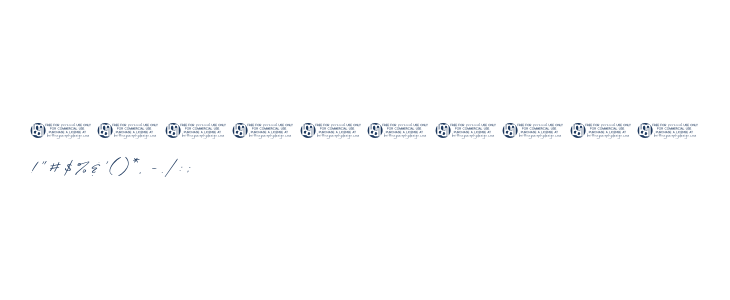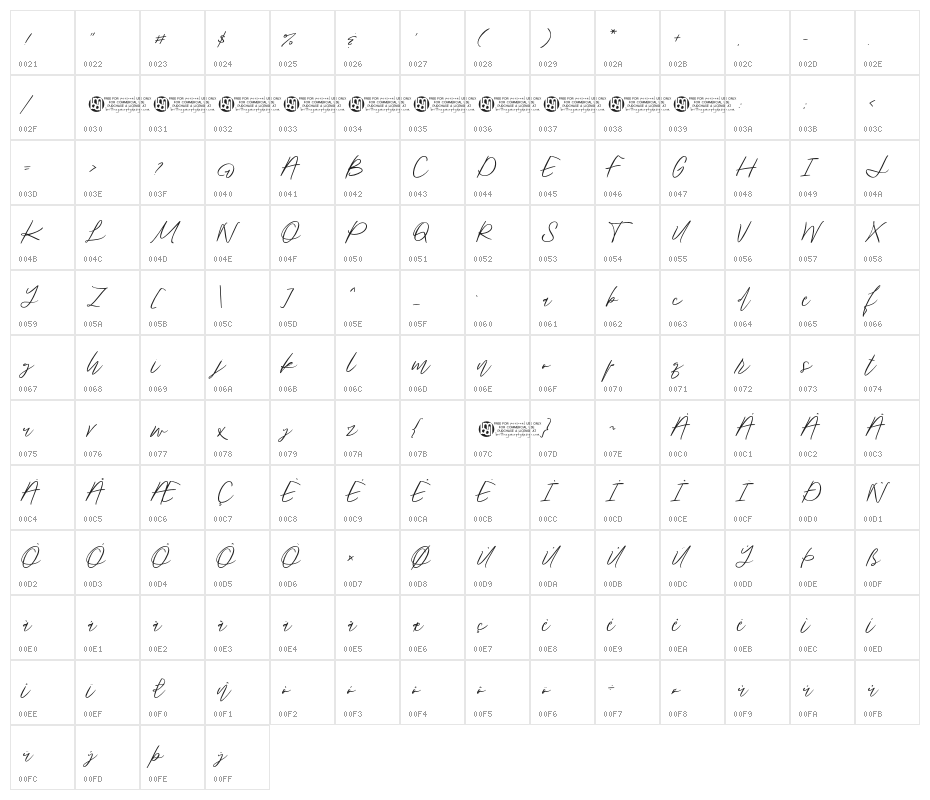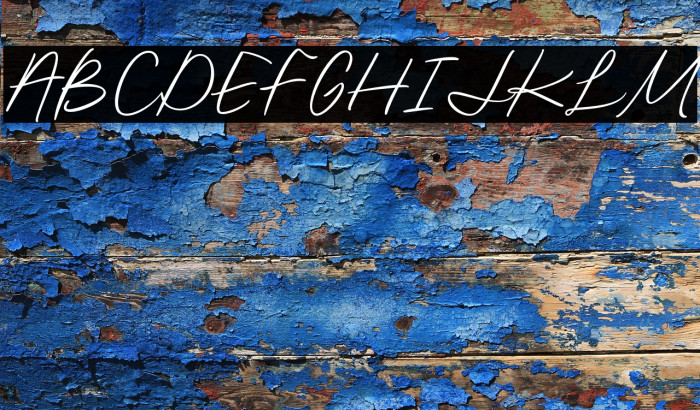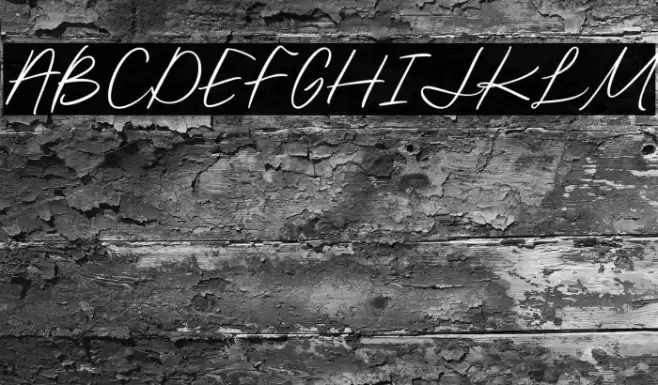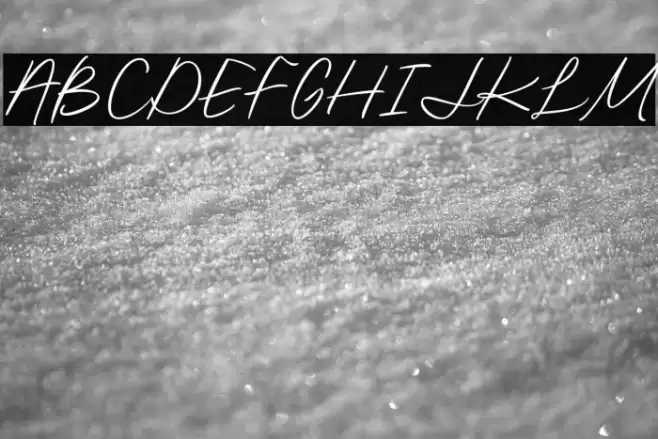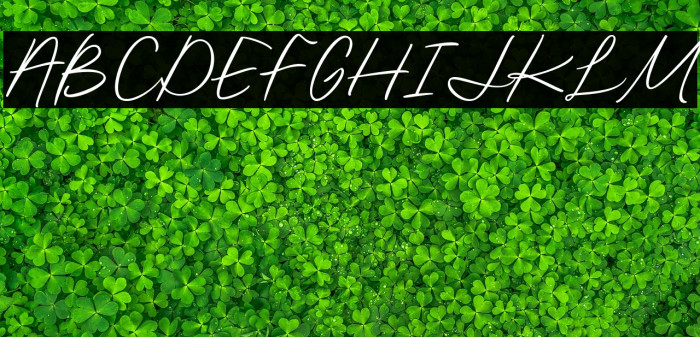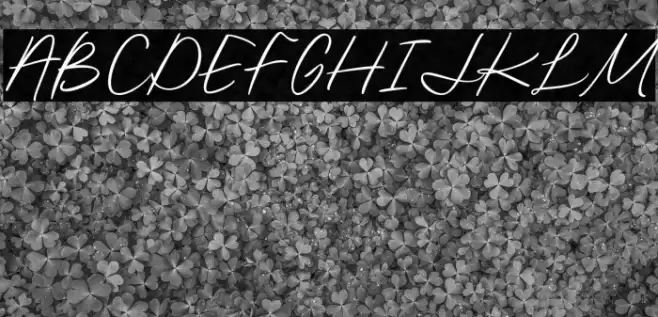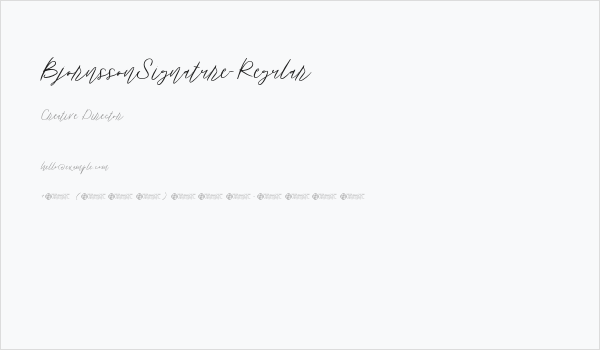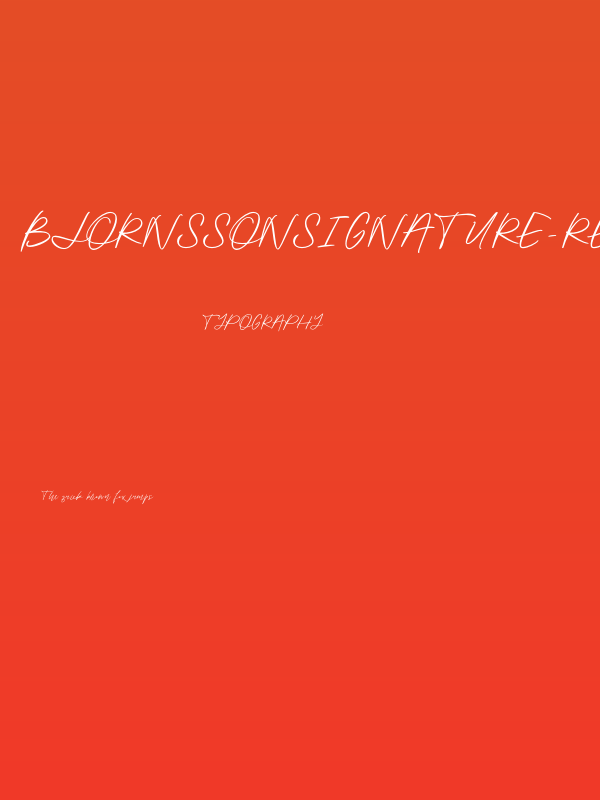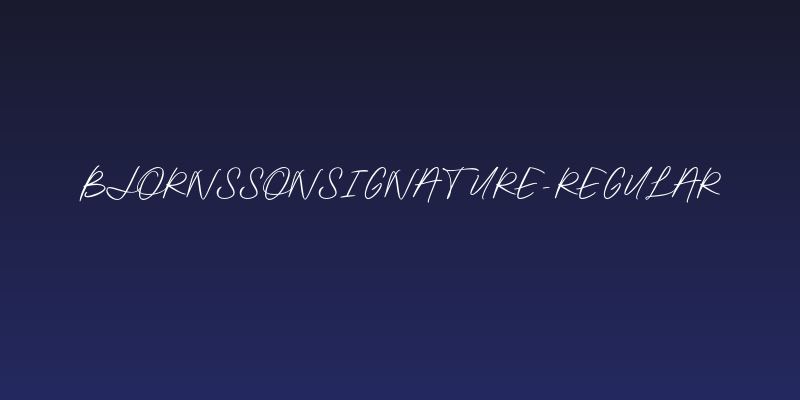
BjornssonSignature-Regular Font
BjornssonSignature-Regular Description
This font exudes a sophisticated and elegant handwritten style, characterized by its fluid and cursive letterforms. Each character is crafted with a natural flow, mimicking the strokes of a calligraphy pen. The uppercase letters are tall and graceful, while the lowercase letters maintain a consistent rhythm and balance. The font includes a full set of numerals and a variety of special characters, enhancing its versatility. Its overall appearance is both stylish and approachable, making it suitable for a wide range of creative applications.
| Overall Style | Elegant, Modern |
| Proposed Projects | Ideal for wedding invitations, personal branding, greeting cards, and elegant packaging designs. |